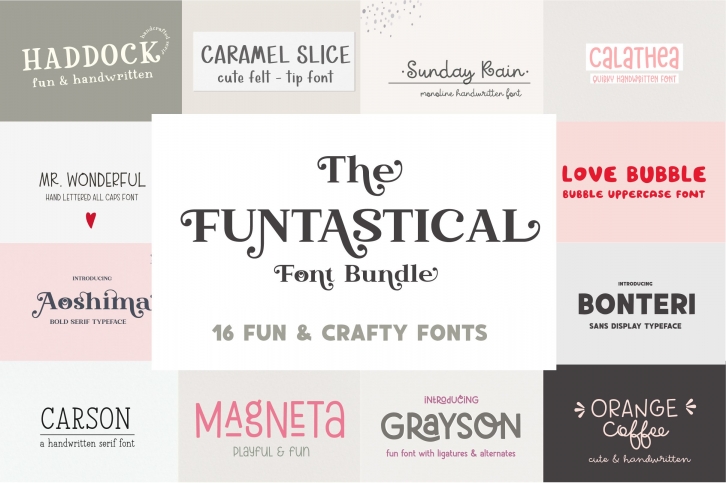
Funtastical Bundle is a trendy and unique font with an authentic style. It was designed by Sunday Nomad and it's a great choice for creative people who need such a font. It was released on June 13, 2022 and the file size is 13.44 MB. Funtastical Bundle will add an organic vibe to any design idea!